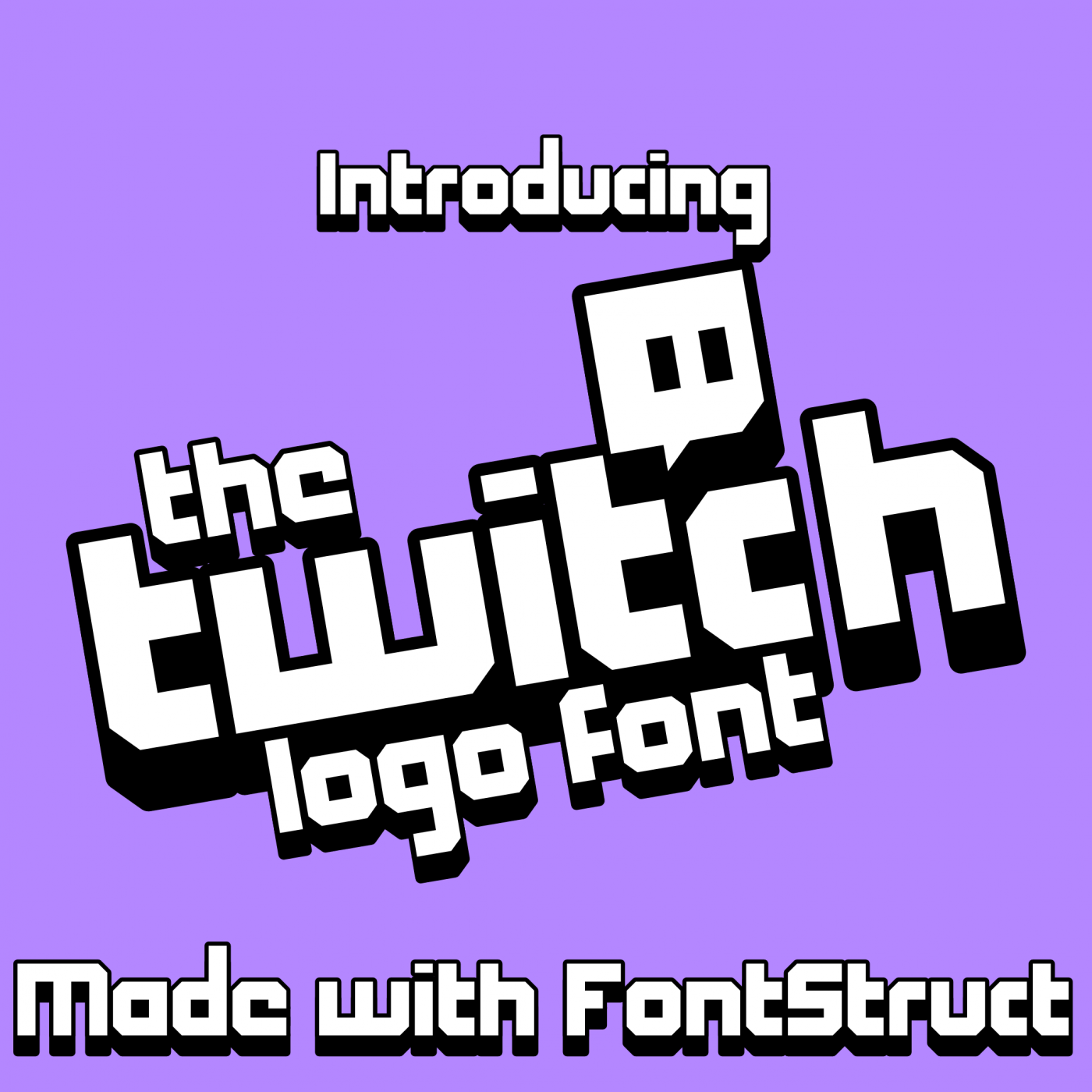
Your demo picture doesn't represent your font faithfully.
It is obvious: the fontstruction is a solid font; the demo picture shows an outline version with added thickness at the bottom.
@Frodo7 It's probably likely that they added an outline and drop shadow effect to the text in a photo editing program.
@ Bryndan W. Meyerholt (BWM): Yes, I surmised as much. Yet, it's still a misrepresentation of the font. The end user won't get the same visual appearance in a text editor as the sample promised.
When you create a new font, what do you want to demonstrate? Your type design skills or Photoshop's limitless capabilities.
“The end user won't get the same visual appearance in a text editor as the sample promised.”
A text editor is designed to handle plain text, which does not include formatting such as outlines or drop shadows.
As for the question: Type design skills, with use of formatting in samples as needed, such as when the text would blend in with the background or parts of it, or to show use cases. I use GIMP to make my samples.
@Bryndan W. Meyerholt (BWM): I believe you confuse (text) formatting with text effects. Here is a clarification.
Formatting at character level may include, but not be limited to, the following:
Selecting typeface/font family
Selecting font style (regular, italic, bold, bold italic, etc.)
Setting font size
Case transformation (uppercase, lowercase, small caps)
Text colour and opacity
Spacing and kerning (manual or automatic)
Baseline shift (superscript, subscript, custom offset)
Underline, strikethrough, overline
OpenType features (ligatures, stylistic sets, alternates, etc.)
Formatting at paragraph level include:
Alignment (left, right, centre, justified)
Indentation (first line, hanging, left/right)
Line spacing (leading)
Space before and after paragraphs
Tabs and tab stops
Hyphenation settings, etc.
Formatting at document level may include:
Headings and subheadings
Lists (bulleted, numbered, multilevel)
Text hierarchy and styles (character styles, paragraph styles)
Text frames and text boxes
Columns and column gutters
Text flow and reflow
Text wrapping around objects, etc.
The list is not exhaustive.
Outline(s) and shadows are not formatting; they are text effects (aka. layer styles). The list of text effects is virtually endless:
Bevel, emboss, engraved, inner/outer glow, drop shadow, inner shadow, neon, extrusion, isometric or pseudo-3D rendering, warp, skew, shear, free transform, and envelop distortion, liquify effects, metallic, glass, plastic, or paper effects, roughness and erosion, weathering or grunge effects, etc.
The main difference is that formatting operates on letters as linguistic symbols, preserving their typographic integrity. Effects operate on shapes, treat letters as shapes or graphical objects. In that case, the typographic information (defining optical balance, rhythm, legibility, spacing, and more) is not preserved, and the results are unpredictable, inconsistent, or suboptimal.
Type designers often provide multiple styles within a family (bold, italic, outline, shadow, inline, bevel, grunge, etc.) to achieve the best possible outcome. Having a text effect baked into the font ensures a consistent visual appearance across different platforms, sizes, and displays
There is nothing wrong with text effects. I used them many times. They are legitimate tools, and in the right context, they can be expressive, robust, even elegant. However, when I demo a new font, I don't apply any text effect. I follow a long-standing typographic principle: a proper typeface should stand on its own, without assistance. Let the letterforms speak for themselves.
A good design doesn't need effects to shine.
@Frodo7 - I think it would be a good challenge for @Barrett17 to make the font as shown in the demo picture; the outline and drop shadow can easily be recreated in FontStruct.  :^)
@Goatmeal: Indeed. Such a font (with outline and shadow) could be built with minimal effort. It's been done already several times. See zlabelle eYe/FS by elmoyenique for a good example.
Come on, Barrett17, we need a Twitch font here!